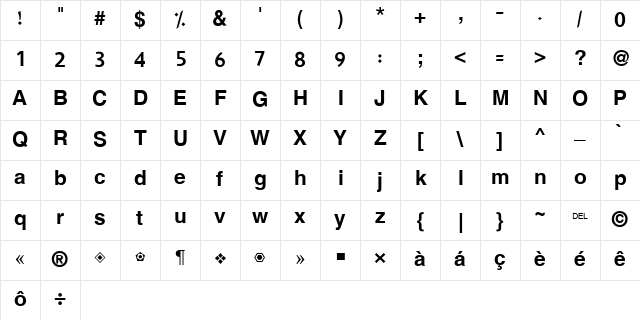
Hacen Liner Screen Bd Regular
Foundry: Muhammad Hacen
Designer: Muhammad Hacen
Design Context for Hacen Liner Screen Bd
Hacen Liner Screen Bd is a composed and adaptable typeface that performs quietly and consistently across a wide range of design contexts. Its bold stroke weight gives it real presence on the page.